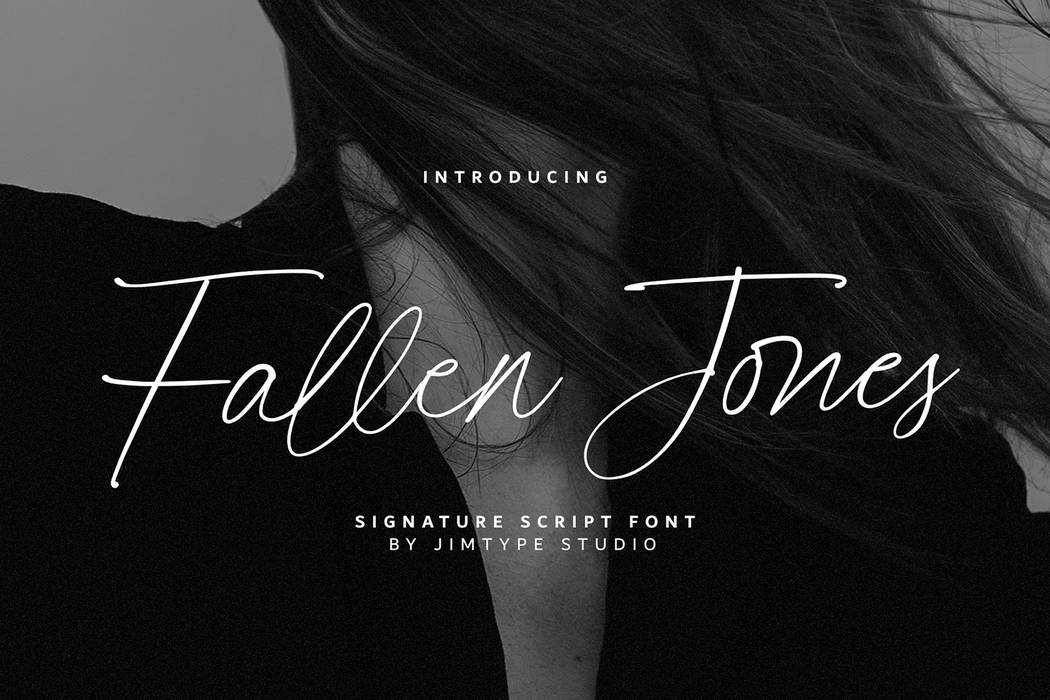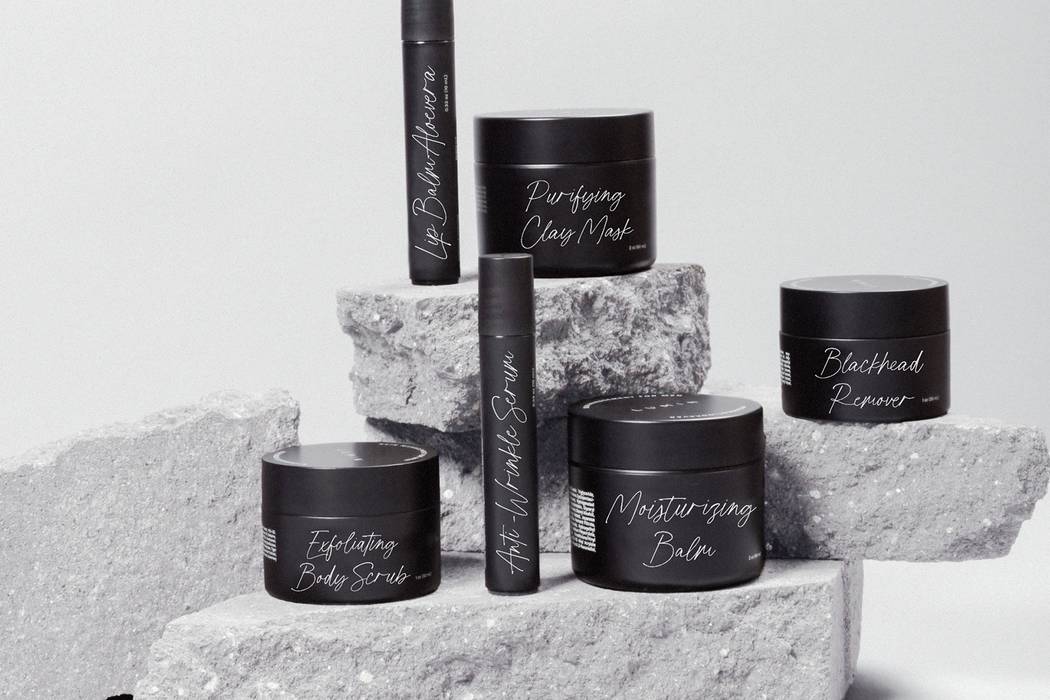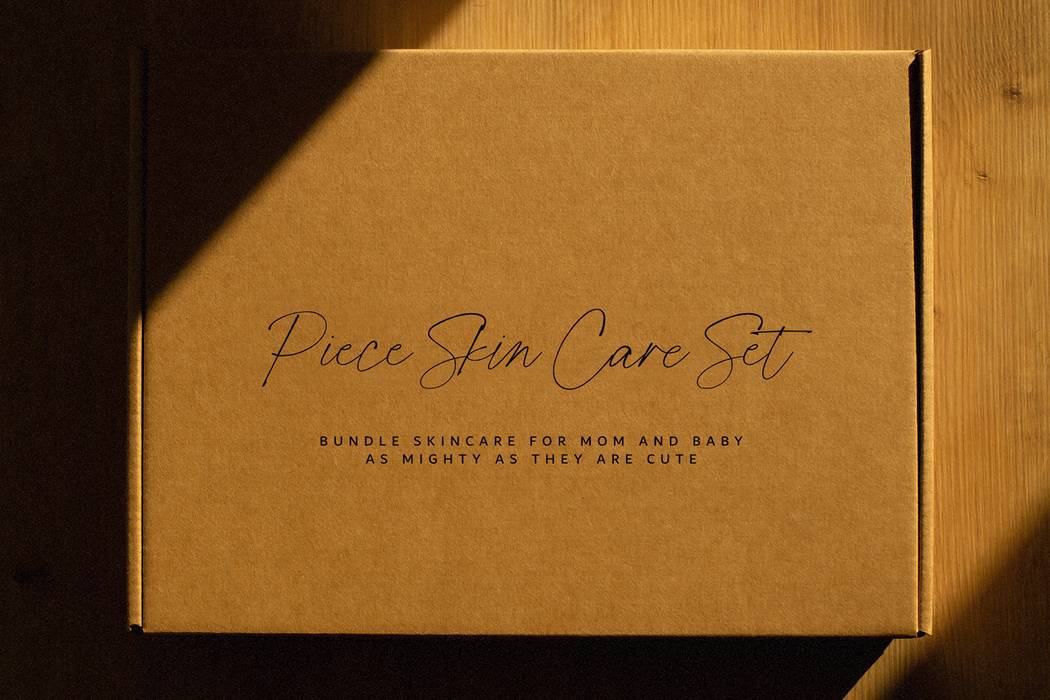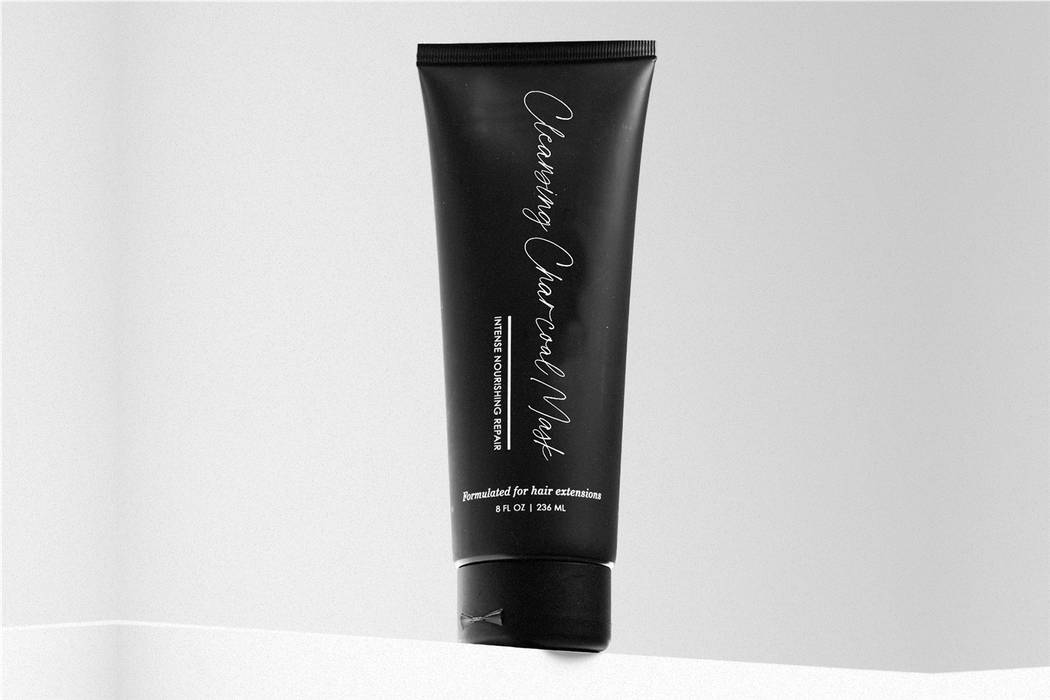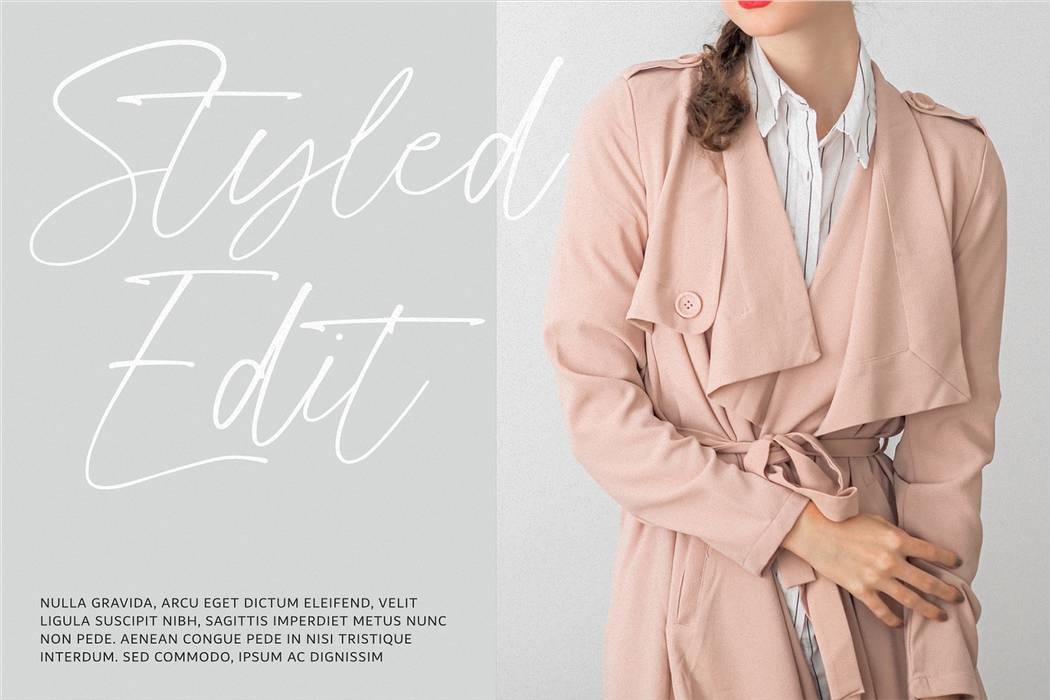
Fallen Jones is a delicate, handwritten script font featuring slender, flowing strokes that give it an elegant and personal touch. Its light weight and tall proportions make it perfect for adding a refined, artistic feel to branding, invitations, and editorial designs where a graceful and modern handwritten aesthetic is desired.
Fallen Jones Font
About Fallen Jones Font
| Font family | Fallen Jones Font |
| Release date | 2020-12-10 |
| Designer | Jimtype Studio |